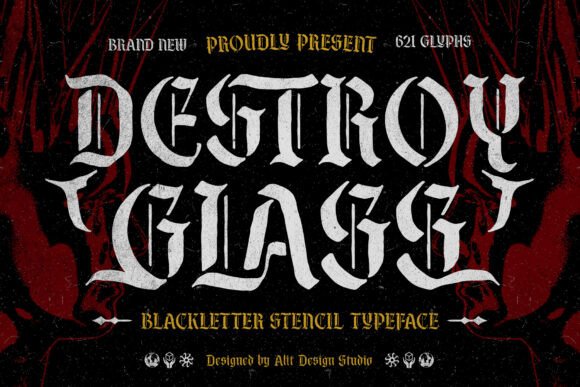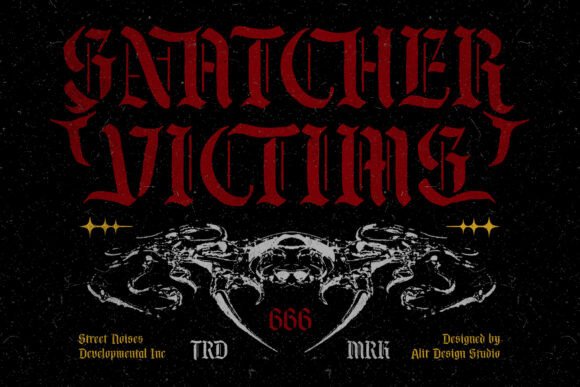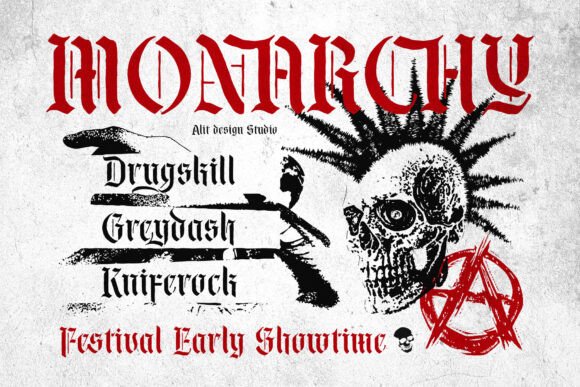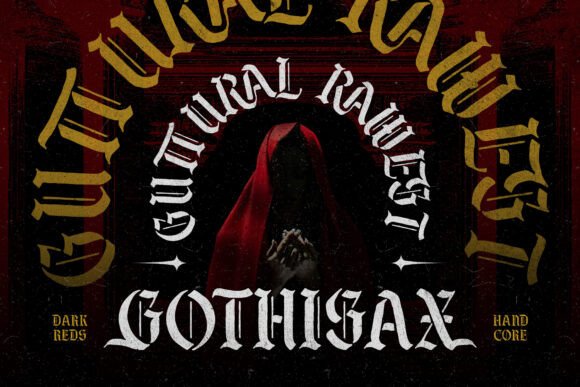
Destroy Glass Font: Bold Blackletter for Edgy Designs
About the Destroy Glass Font
The Destroy Glass Font offers a perfect balance of form and function for your design needs. Unleash boldness and elegance with Destroy Glass, a meticulously crafted blackletter stencil typeface designed to make a powerful statement. Whether you’re aiming for a vintage gothic aesthetic or an edgy modern look, this font delivers the perfect balance of tradition and rebellion.
Destroy Glass excels in headline applications, short impactful statements, and branding projects requiring a strong, memorable visual identity. It’s ideal for posters, logos, and packaging design where a bold, high-impact aesthetic is desired. However, its intricate detail and high x-height make it unsuitable for extended body text or UI elements; readability suffers in smaller sizes or within lengthy paragraphs.
The font’s core personality is bold and rebellious, yet possesses an underlying elegance. This duality allows for versatile application, depending on accompanying imagery and design choices.
Pairing Destroy Glass with a clean sans-serif like Montserrat for body copy provides excellent contrast and readability. For a more vintage feel, consider pairing it with a classic serif such as Garamond or a slightly more modern serif like Playfair Display. Avoid pairing it with other highly decorative fonts; the effect would be too cluttered.